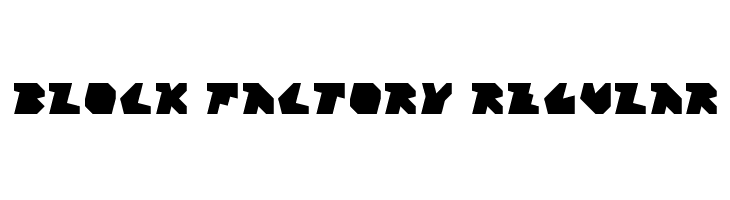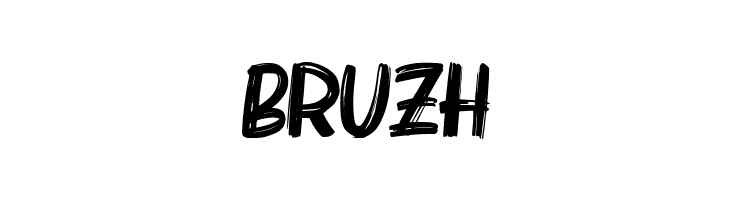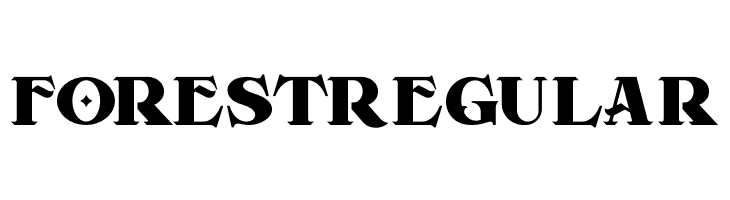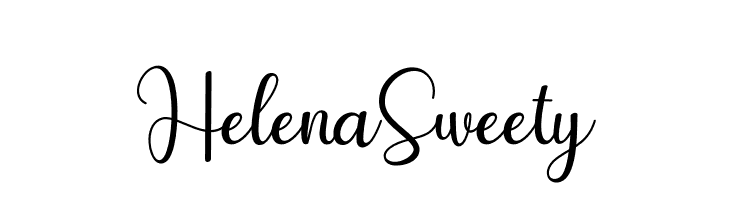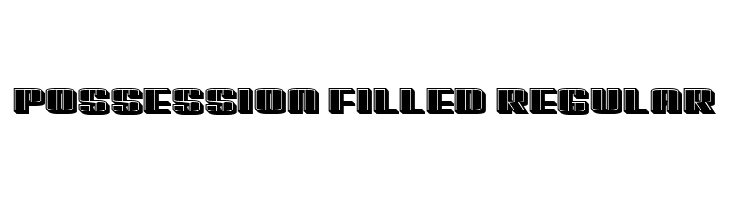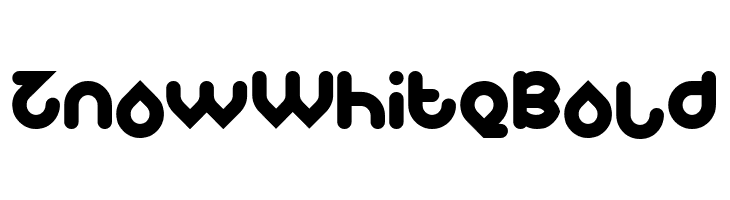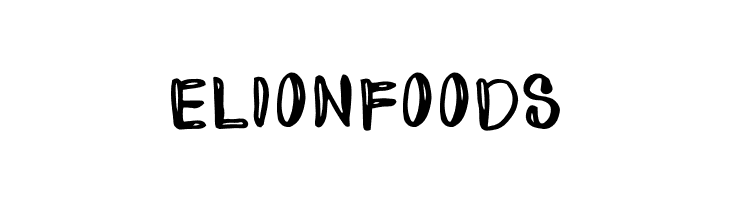
A bold, futuristic font with a gradient effect created by horizontal lines.
A flowing, elegant script font with intricate loops and swashes.
A bold, geometric font with sharp, angular edges and a futuristic style.
A sophisticated cursive font with elegant, flowing lines.
A bold, italicized sans-serif font with a modern and dynamic style.
A graceful and elegant script font with flowing cursive letterforms.
A whimsical script font with flowing, curly lines and elegant loops.
A bold, geometric font with a three-dimensional shadow effect and sharp edges.
A playful, bold font with a leftward slant and rounded characters.
A vintage, decorative font with bold, artistic strokes and a handcrafted appearance.